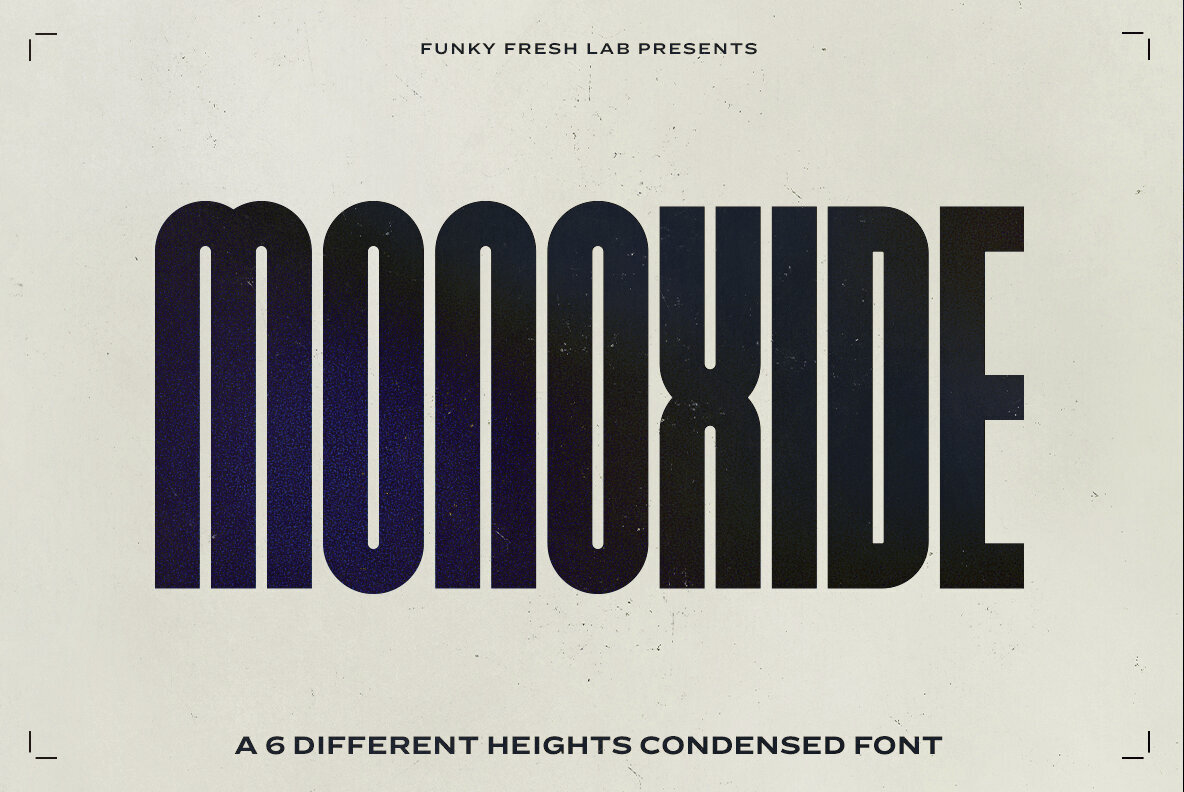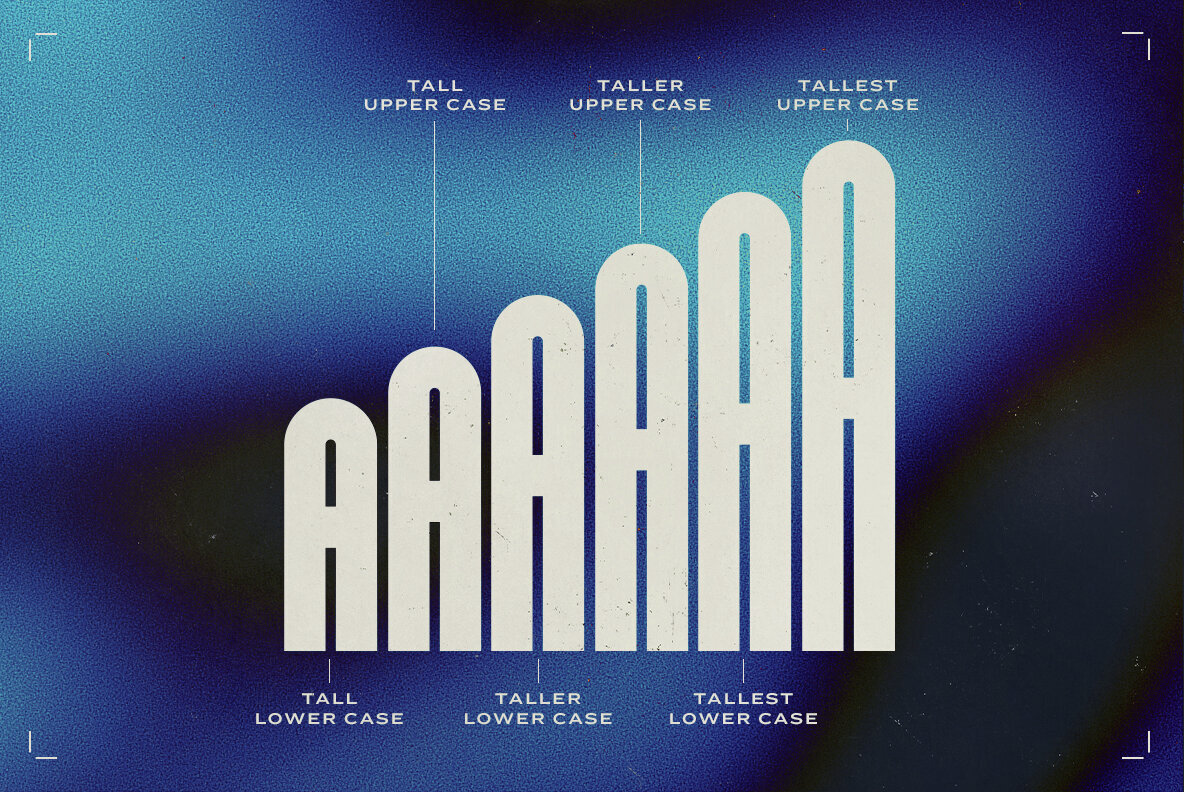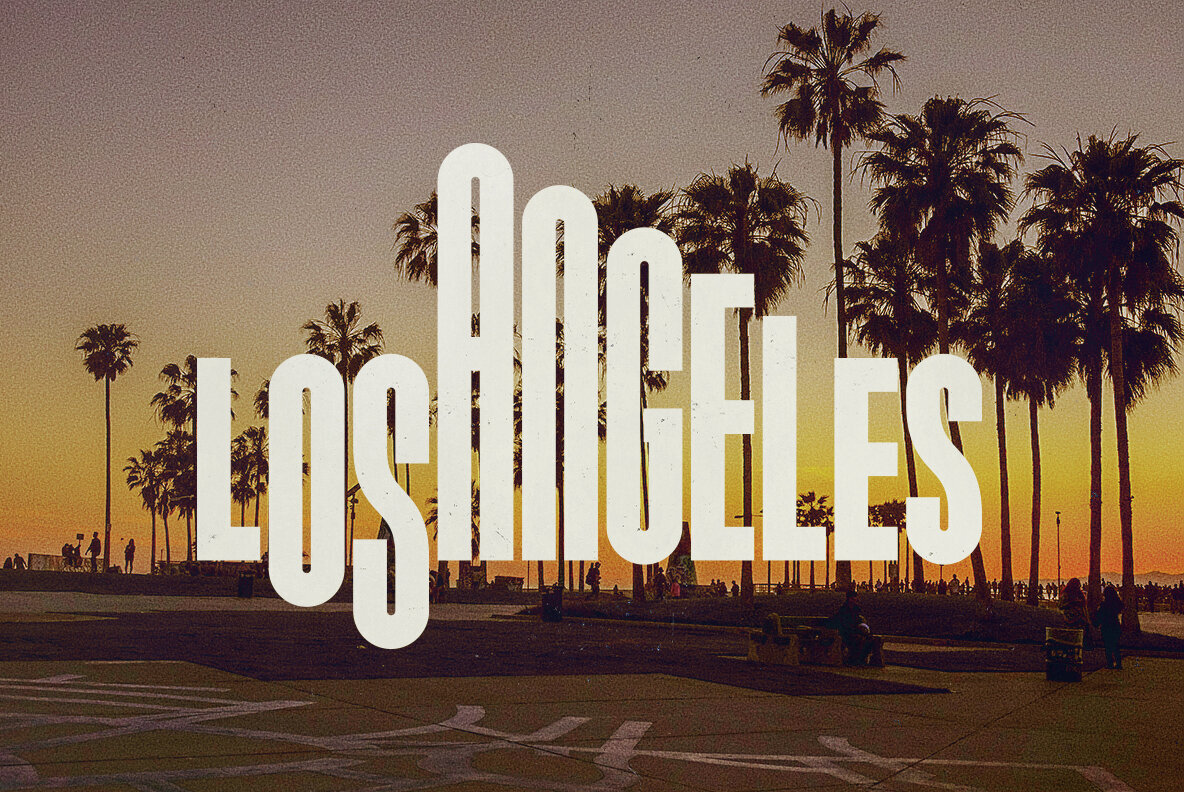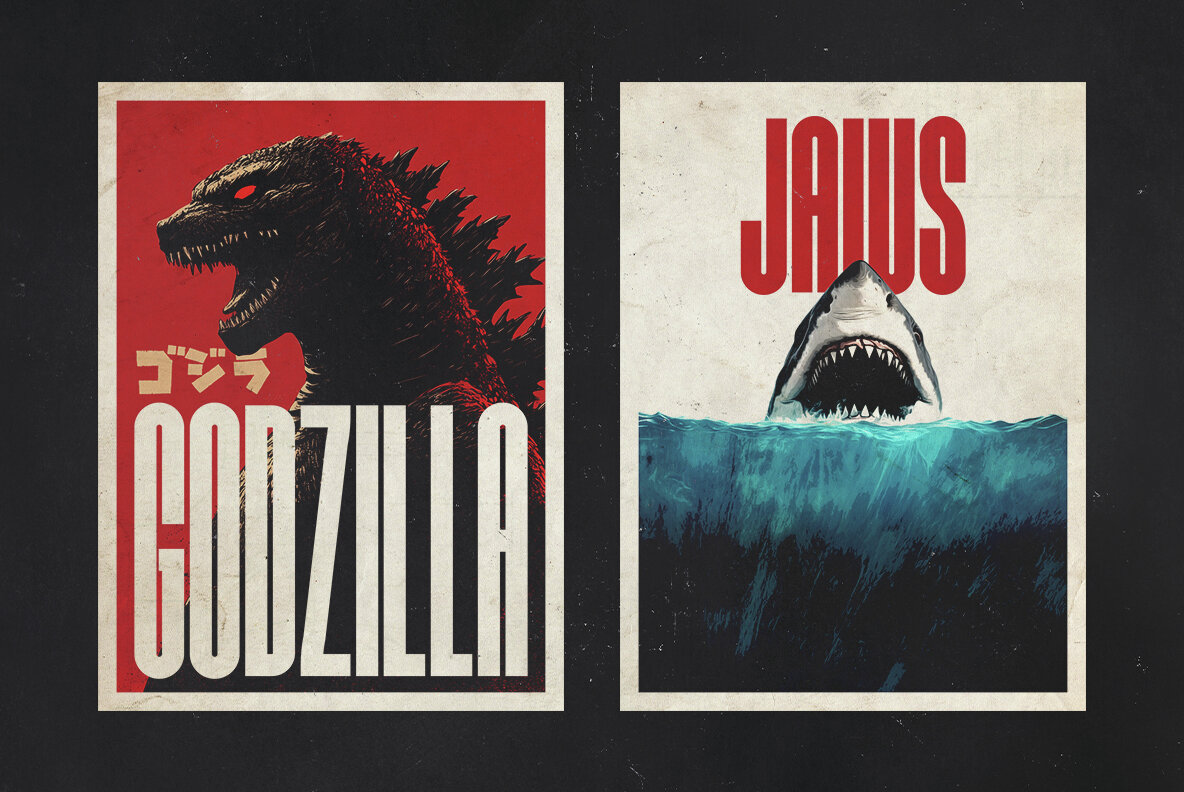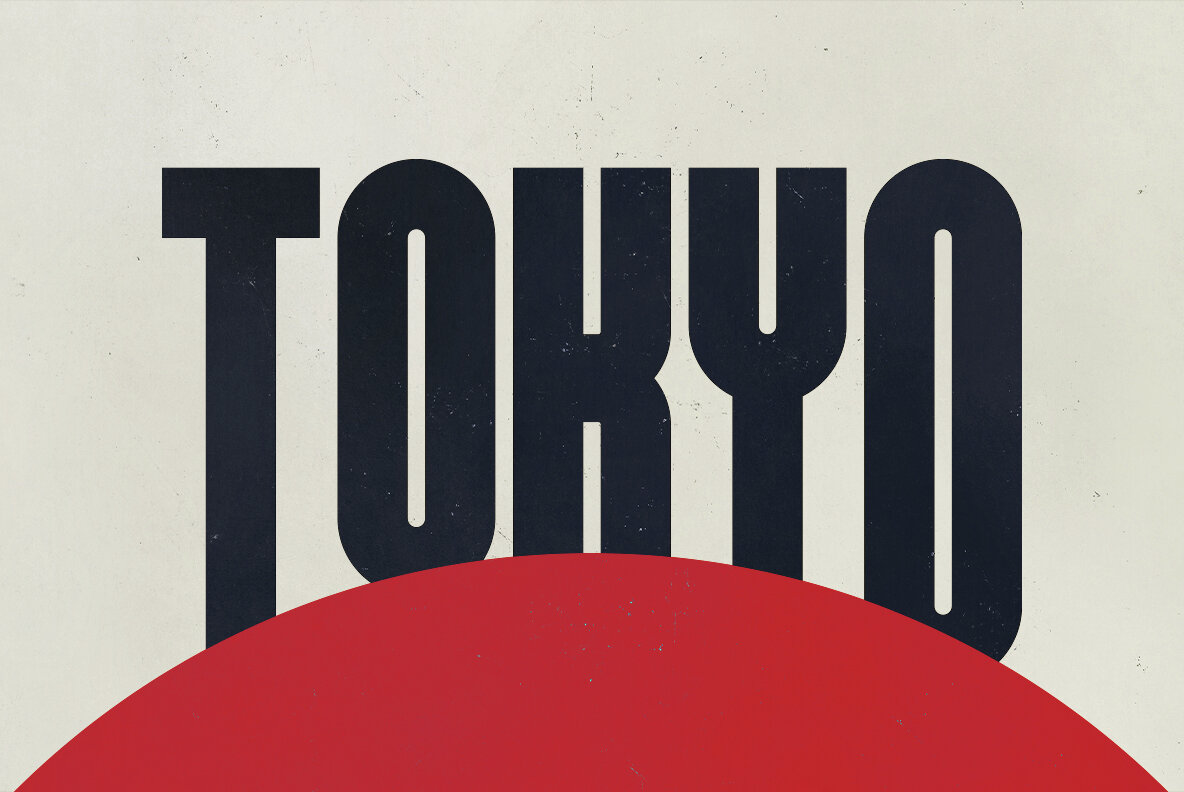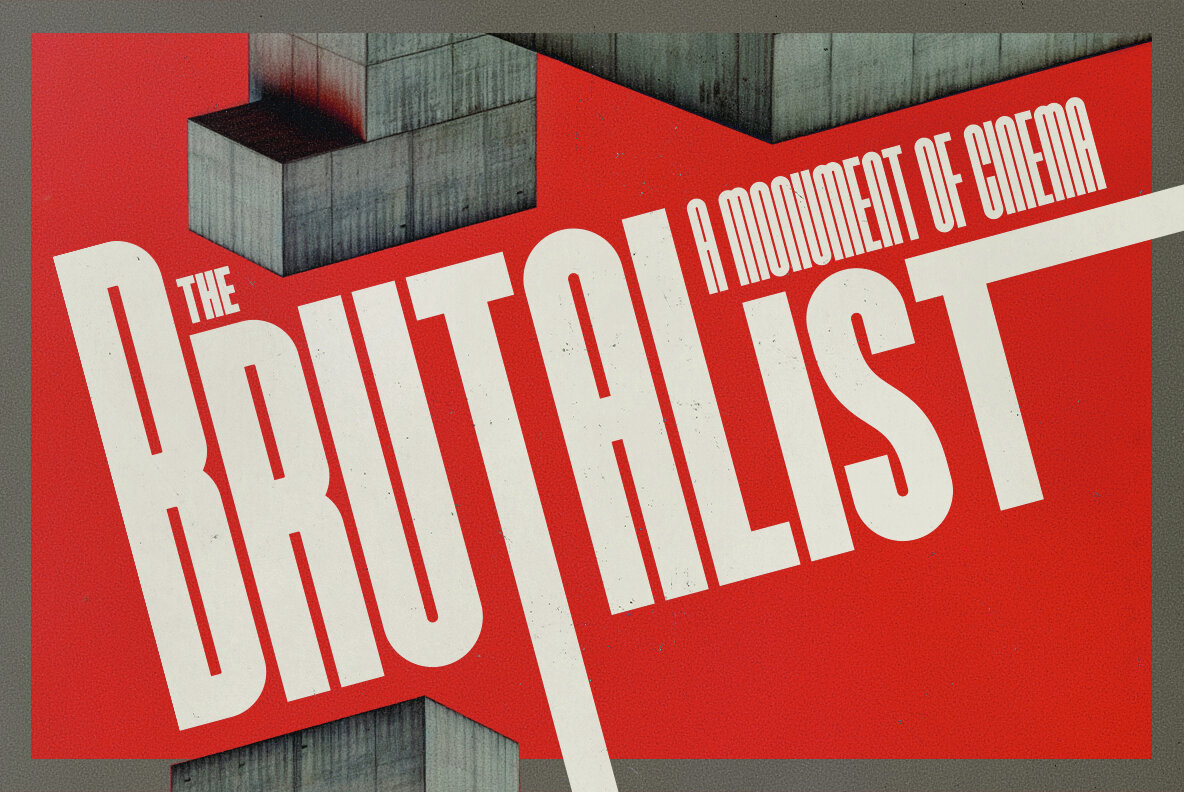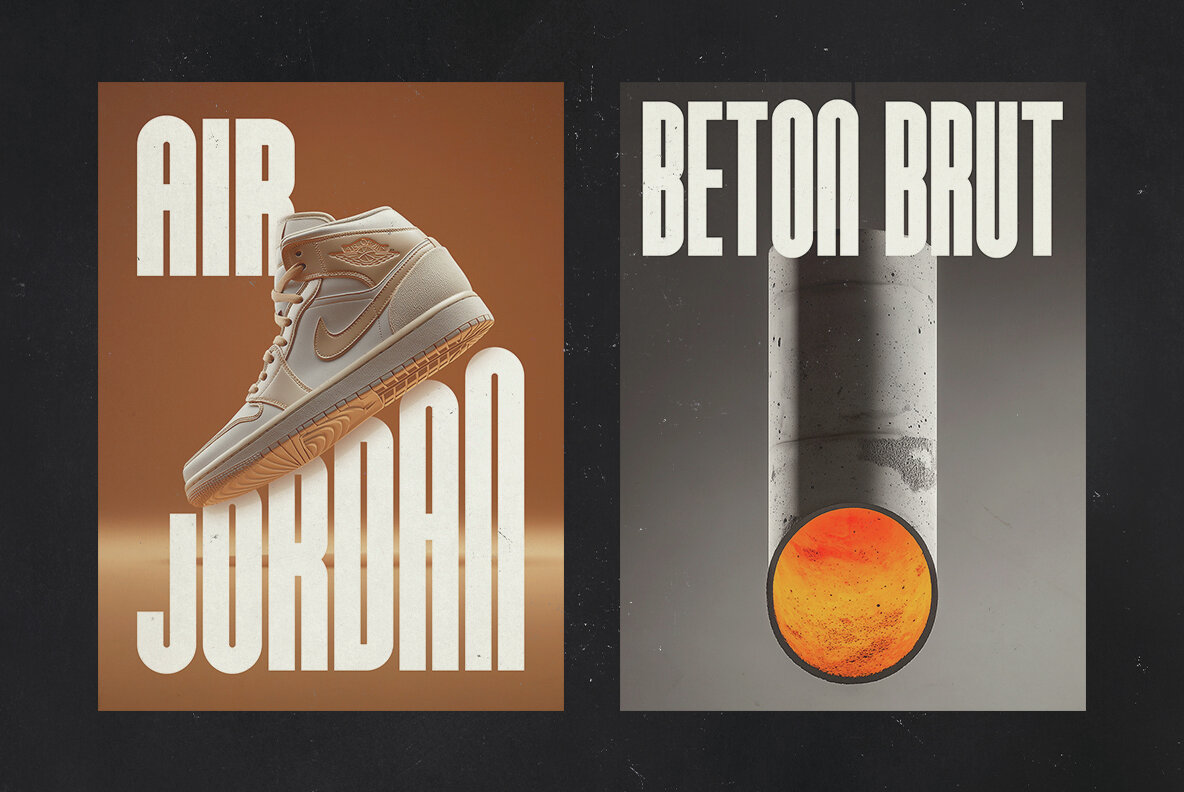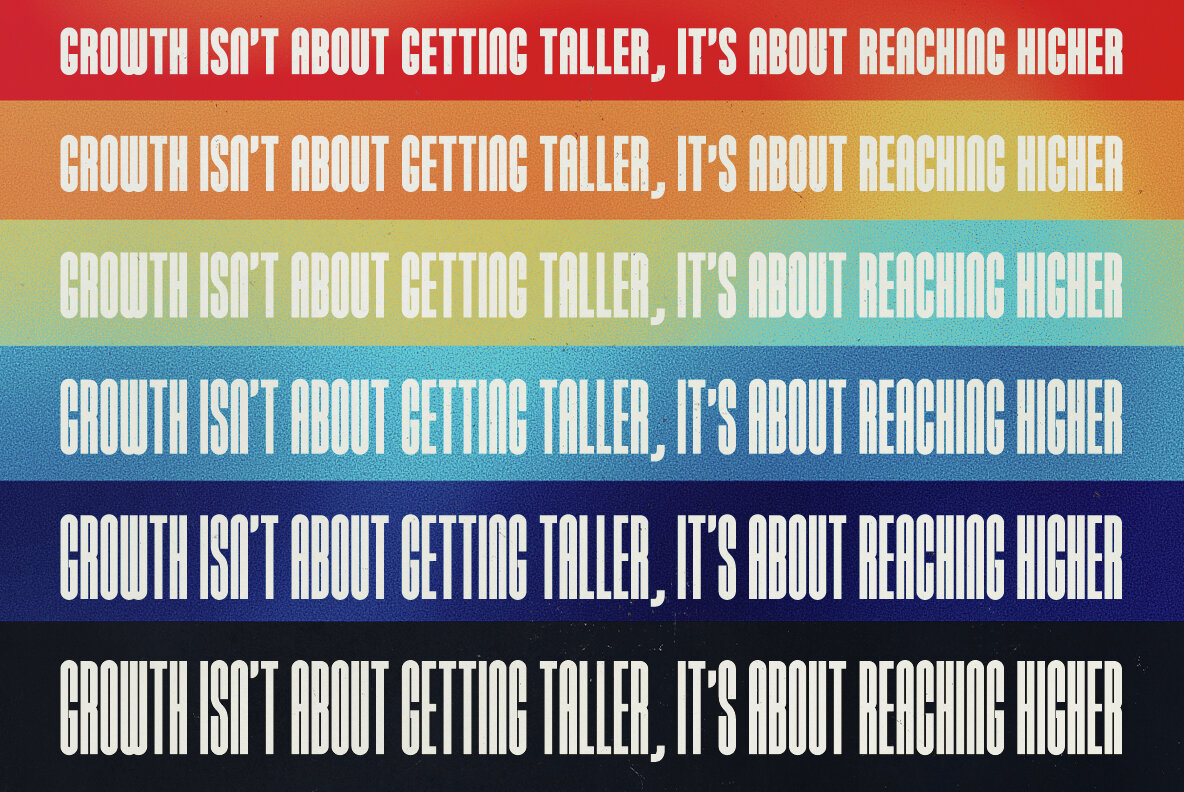
Monoxide Font
Meet Monoxide, the bold all-caps condensed font designed to elevate your creative projects. With six unique height variations, this typeface infuses sharp personality and energizing rhythm into headlines, posters, and logos. Its clean yet compact style ensures every design is not only eye-catching but also unapologetically loud, making Monoxide a game-changer for designers seeking an edgy touch.Unleash Your Design Potential with Monoxide